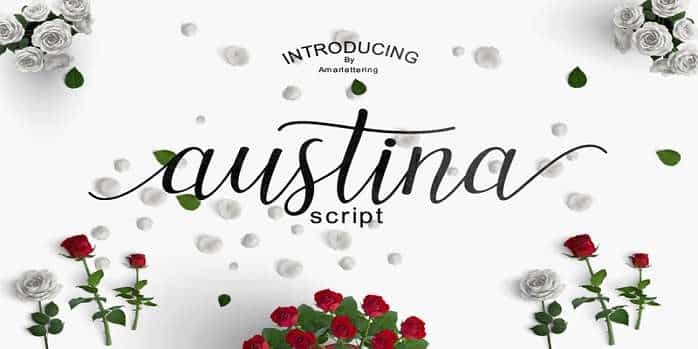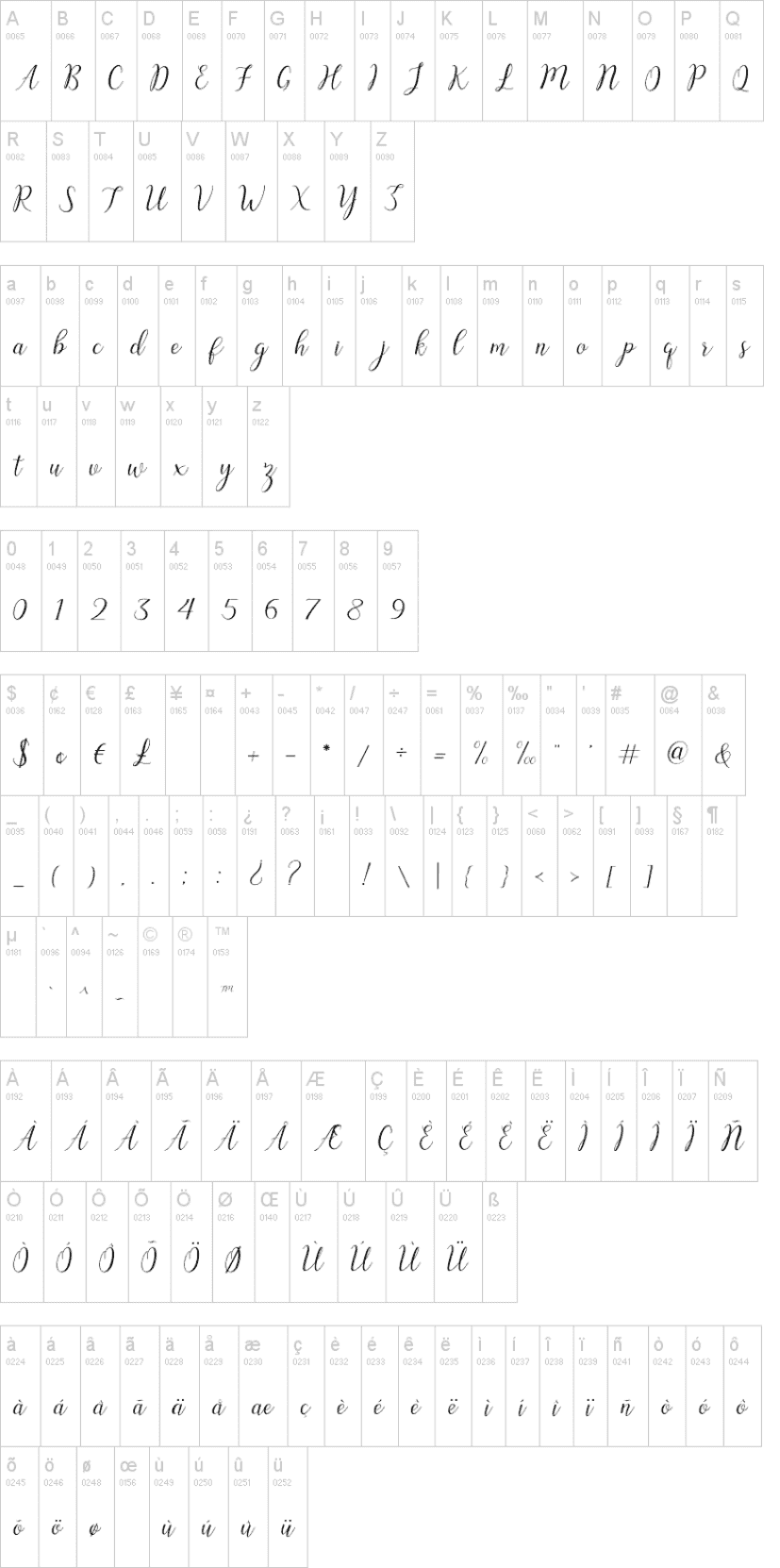
Discover Austina Font, part of the Calligraphy collection—a versatile and unique font perfect for adding a personal touch to your projects. Download it for free and enjoy crafting designs with style, from invitations to social media posts. This font is available exclusively for personal use, giving you the freedom to create without limits. Unlock your creativity with Austina Font today!
Austina is a good quality Calligraphy font which is created by Amar Lettering and can be downloaded for free for personal use. The free version offers all capital letters, all small letters, and a few special characters.